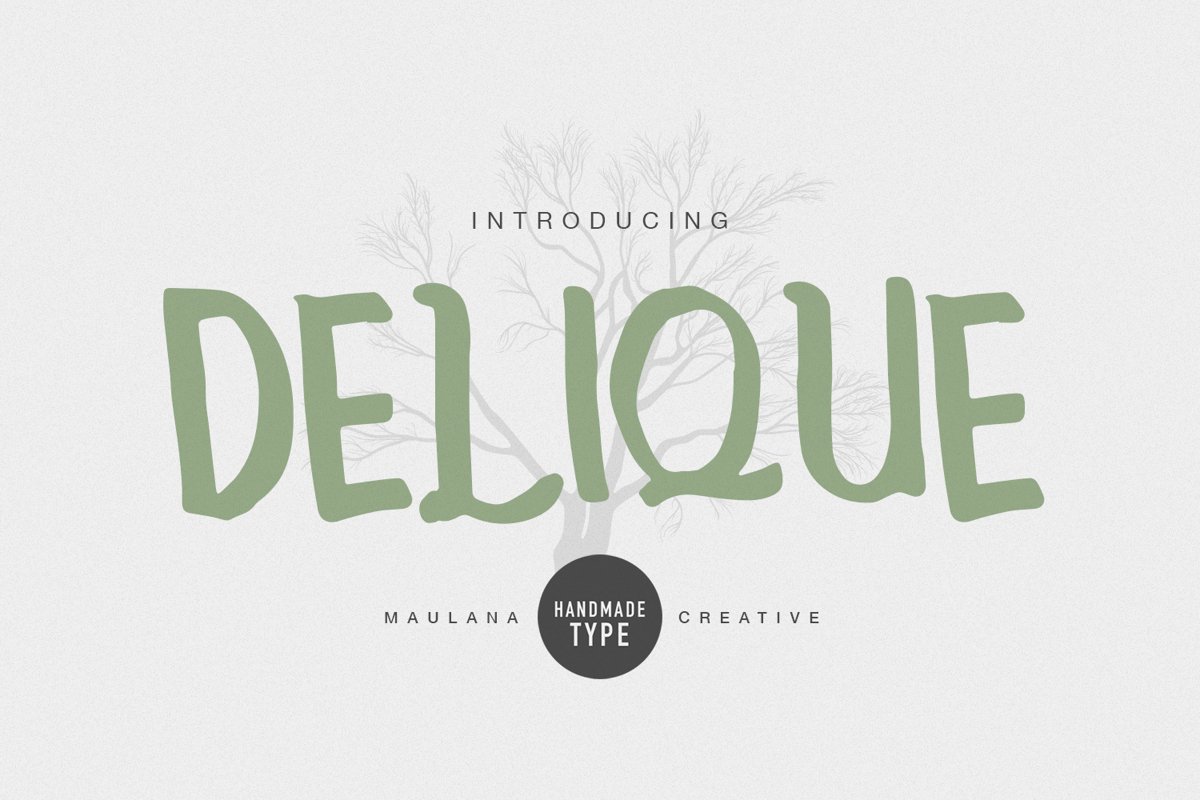
Delique Handmade Type Sans Font. Delique is perfectly suited to branding, logos, magazines, films, website, headlines, titles, captions, games, apps, posters, t-shirts and more.